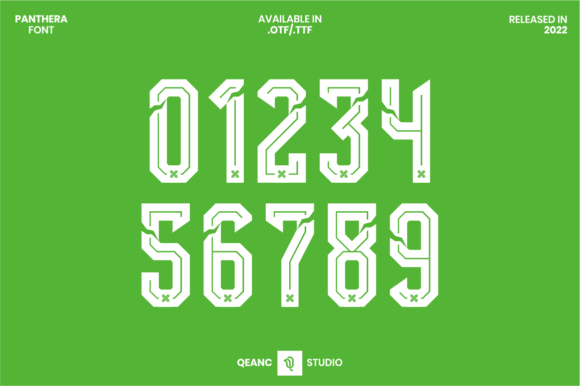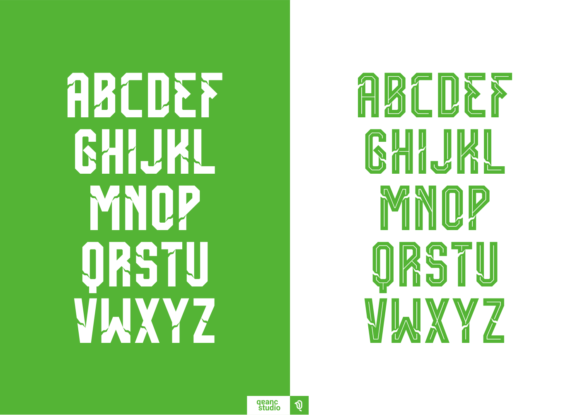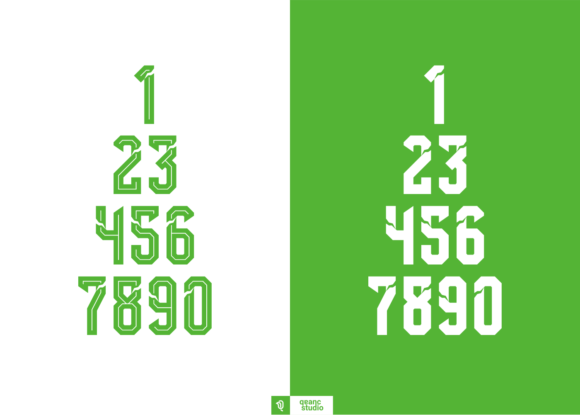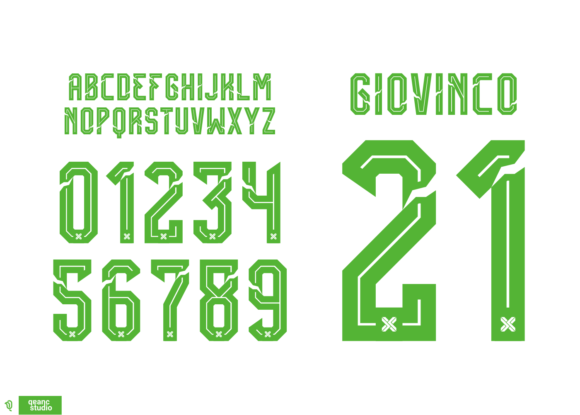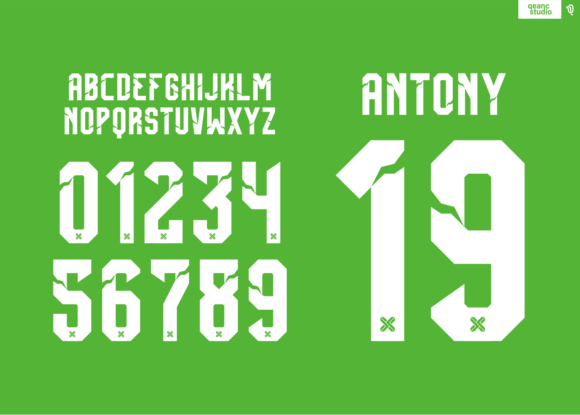
Panthera is a cool and modern display inspired by football. It is the perfect font for any sports or racing-themed projects, such as logos, posters, t-shirts, and much more. Add this font to your creative ideas and notice how it will make them stand out!
Panthera Font